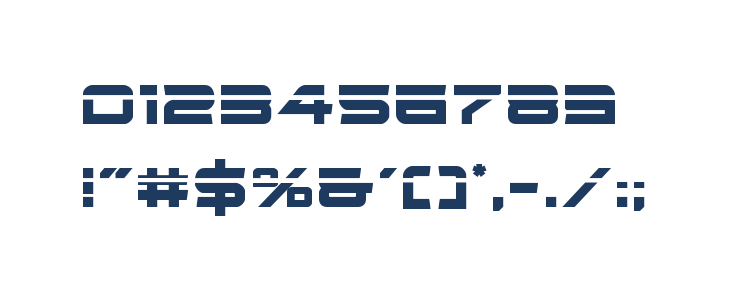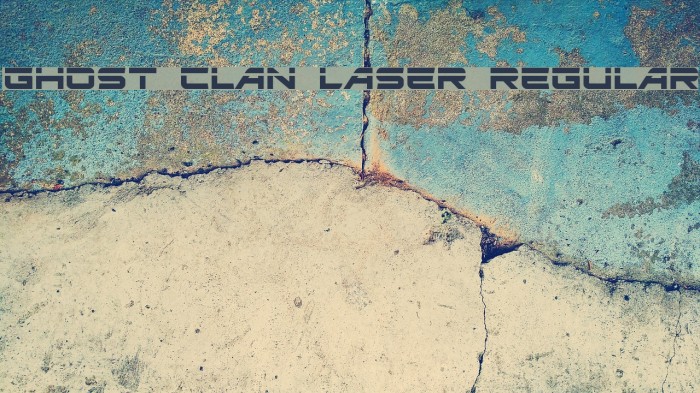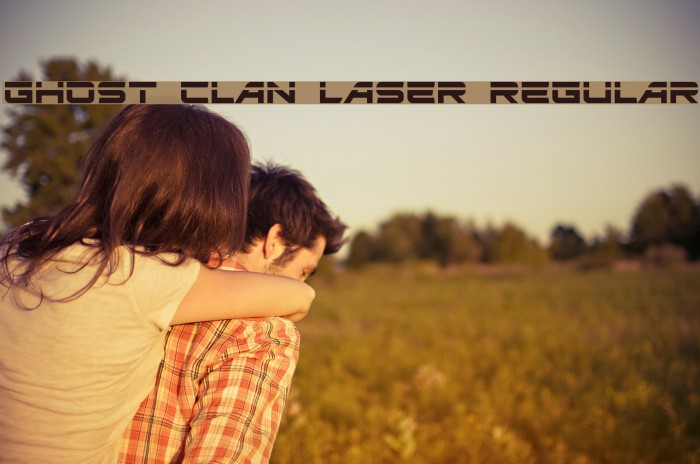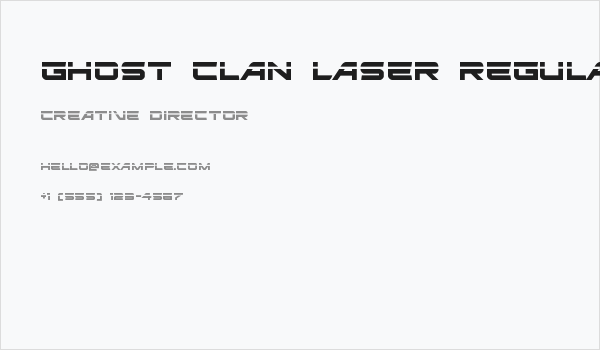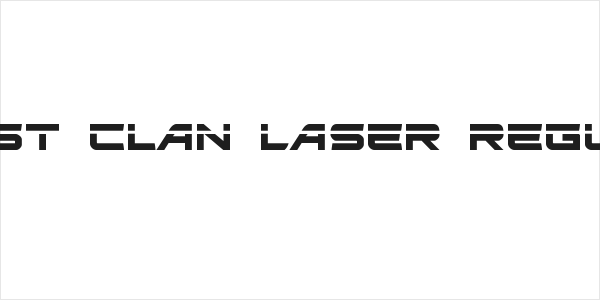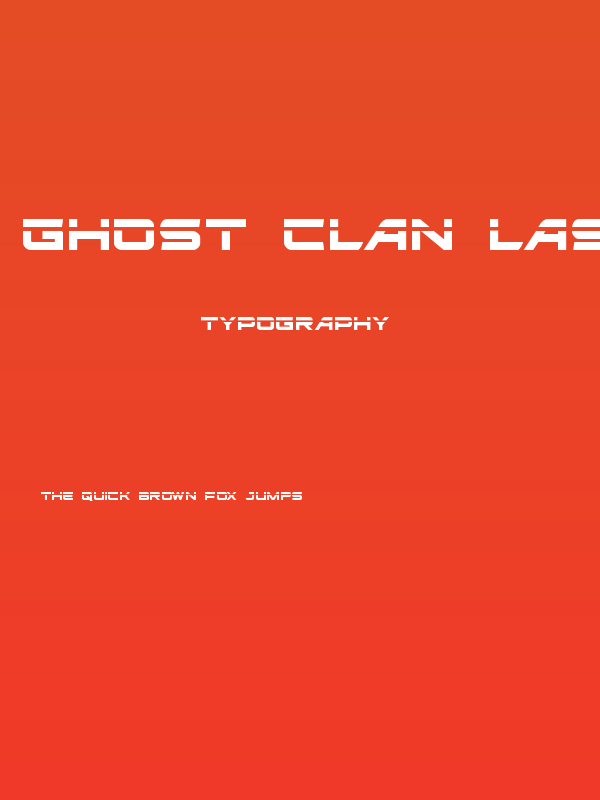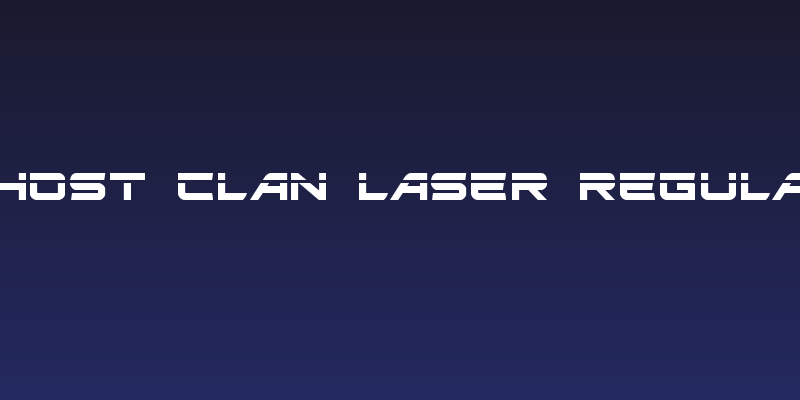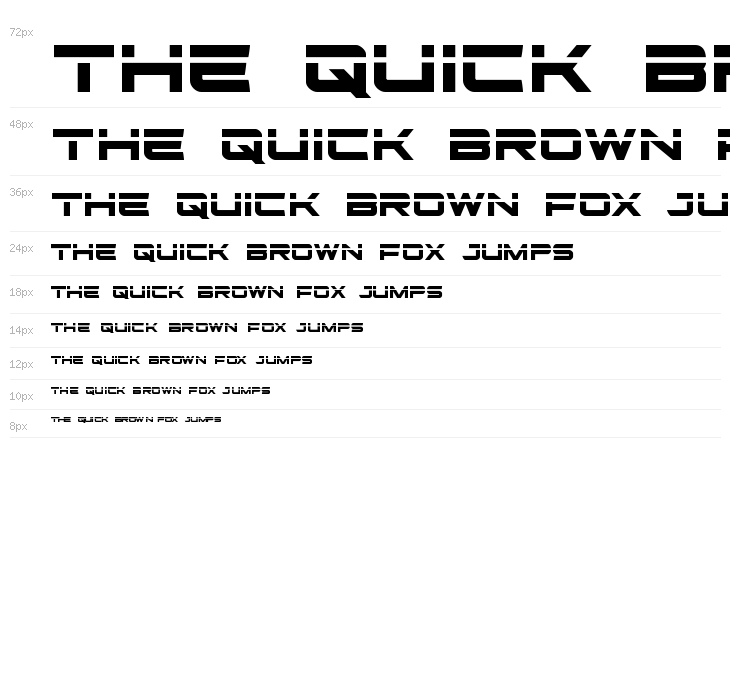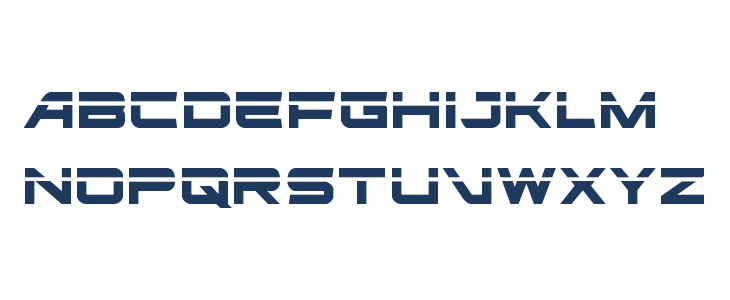
Ghost Clan Laser Regular Font
Ghost Clan Laser Regular Description
This font features a futuristic and angular design, characterized by sharp edges and geometric shapes. The uppercase and lowercase letters maintain a consistent style, with a bold presence and a sense of movement. The numerals and special characters follow the same design principles, ensuring a cohesive look across all glyphs. The font's unique style makes it stand out, ideal for projects that require a modern and edgy aesthetic.
| Proposed Projects | Ideal for sci-fi themed designs, technology branding, video game titles, and futuristic posters. |